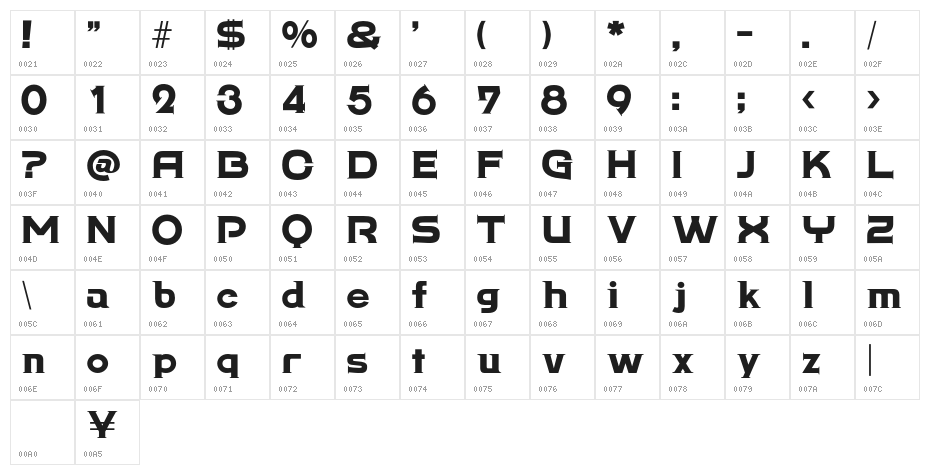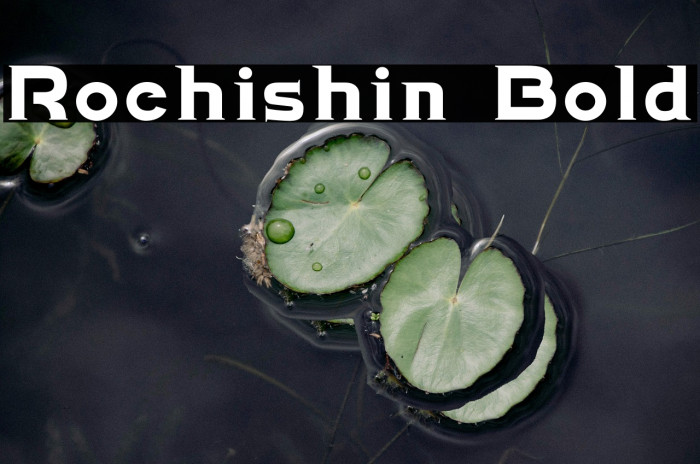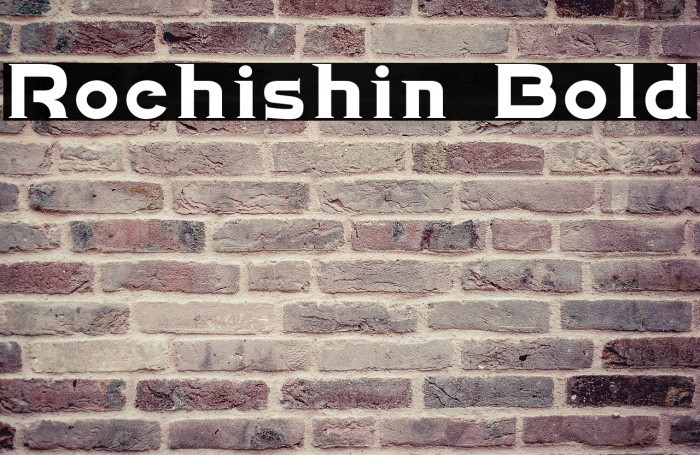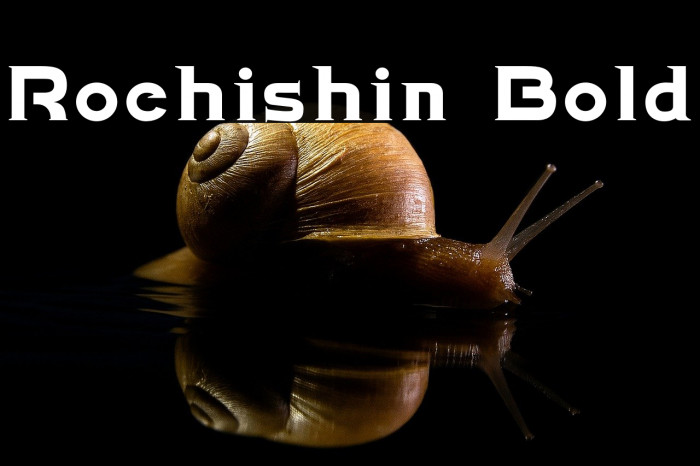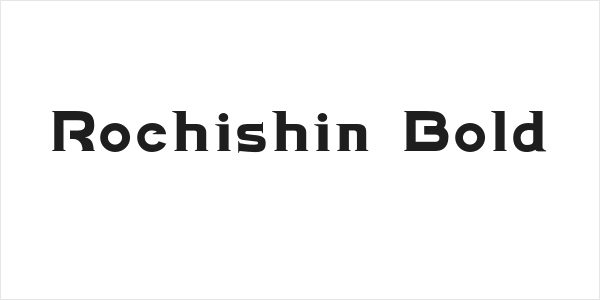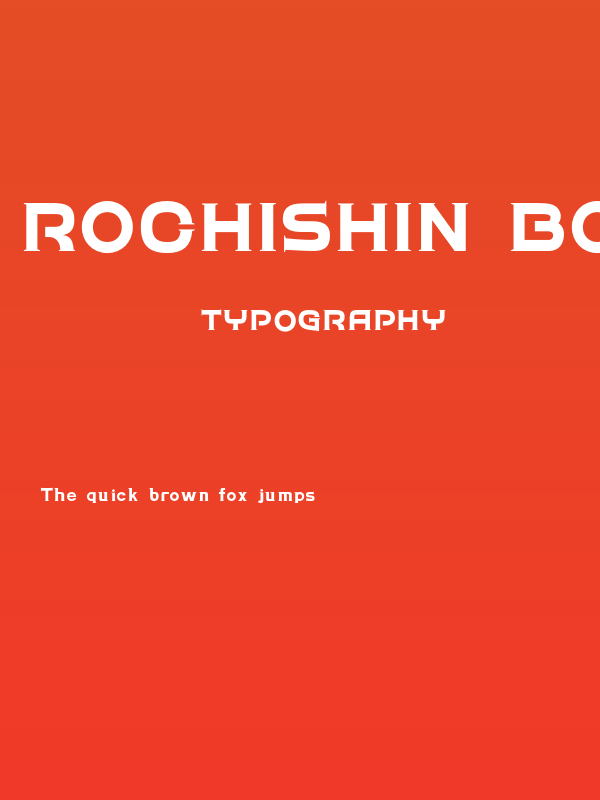
Rochishin Bold Font
Rochishin Bold Description
This font features a bold and striking design with a modern twist, characterized by its strong geometric shapes and sharp edges. The uppercase letters exhibit a unique blend of angular and curved elements, creating a dynamic and eye-catching appearance. The lowercase letters maintain a consistent style, offering a harmonious balance between readability and aesthetic appeal. The numerals are bold and distinct, ensuring clarity in any context. Special characters are designed with the same attention to detail, making them stand out while remaining cohesive with the overall font style. This font is perfect for projects that require a bold statement and a modern edge.